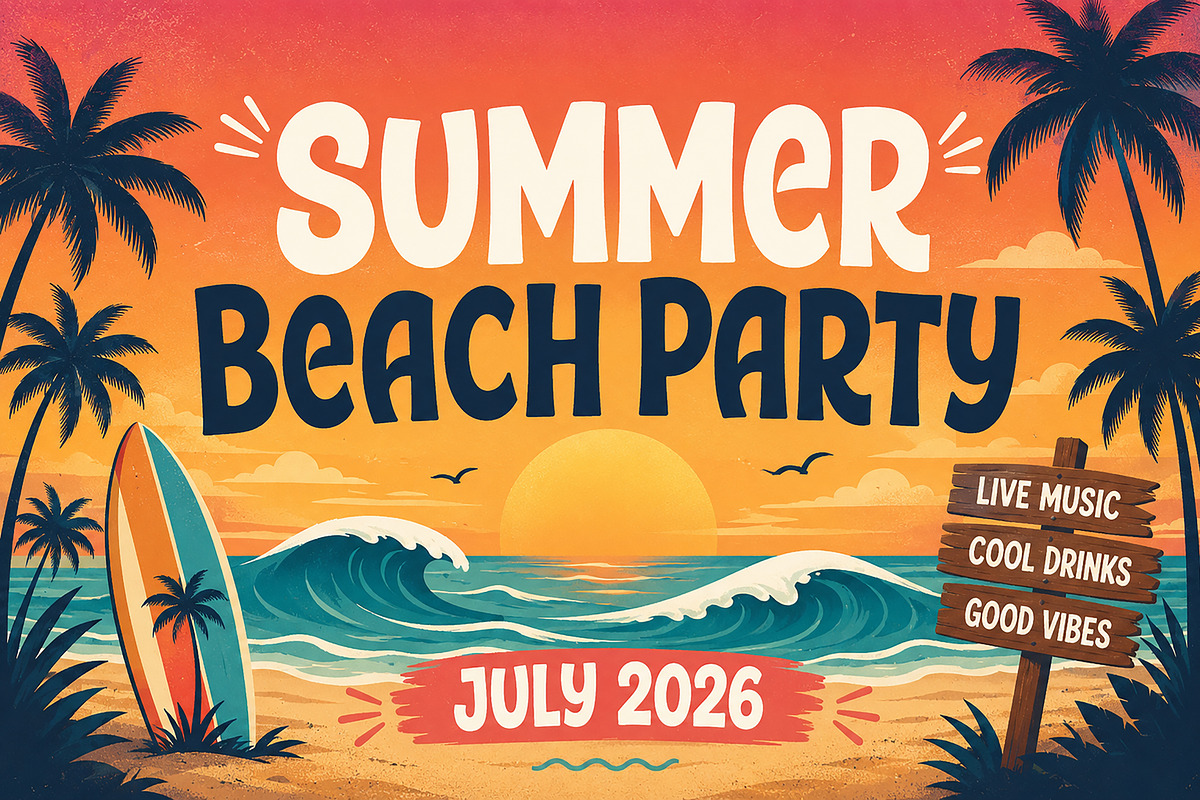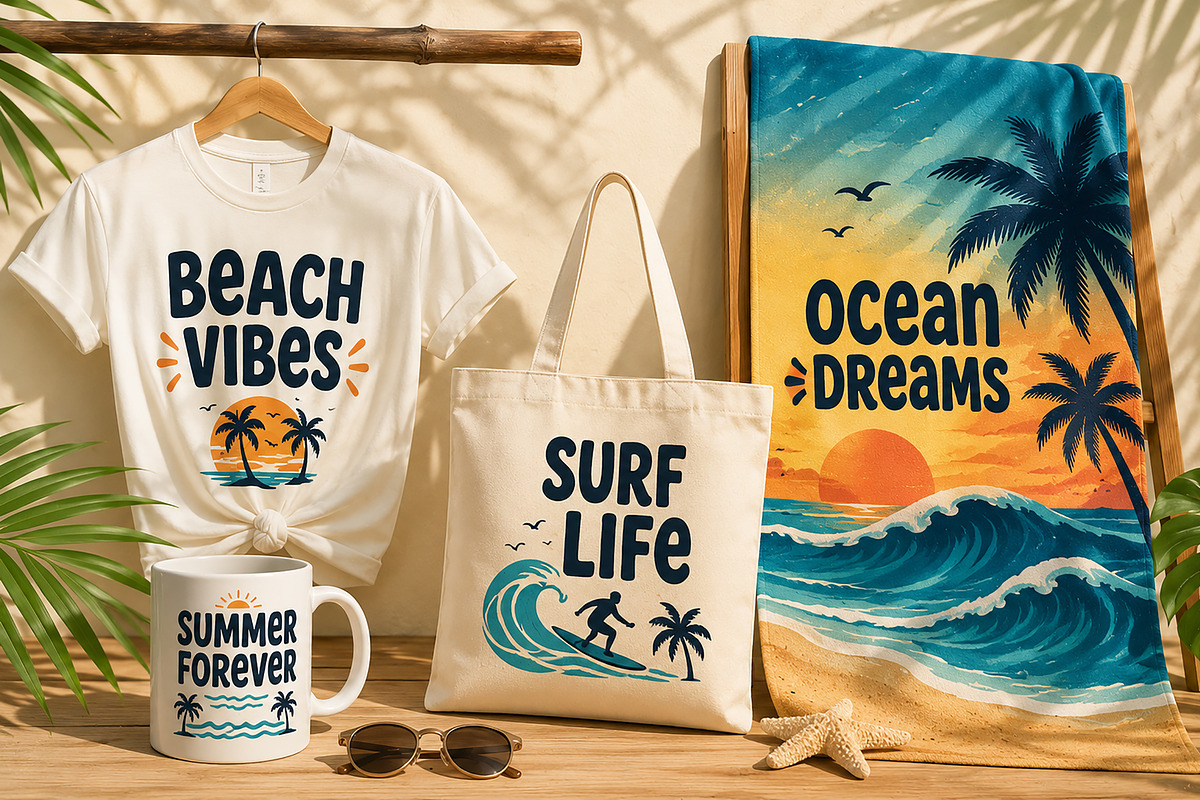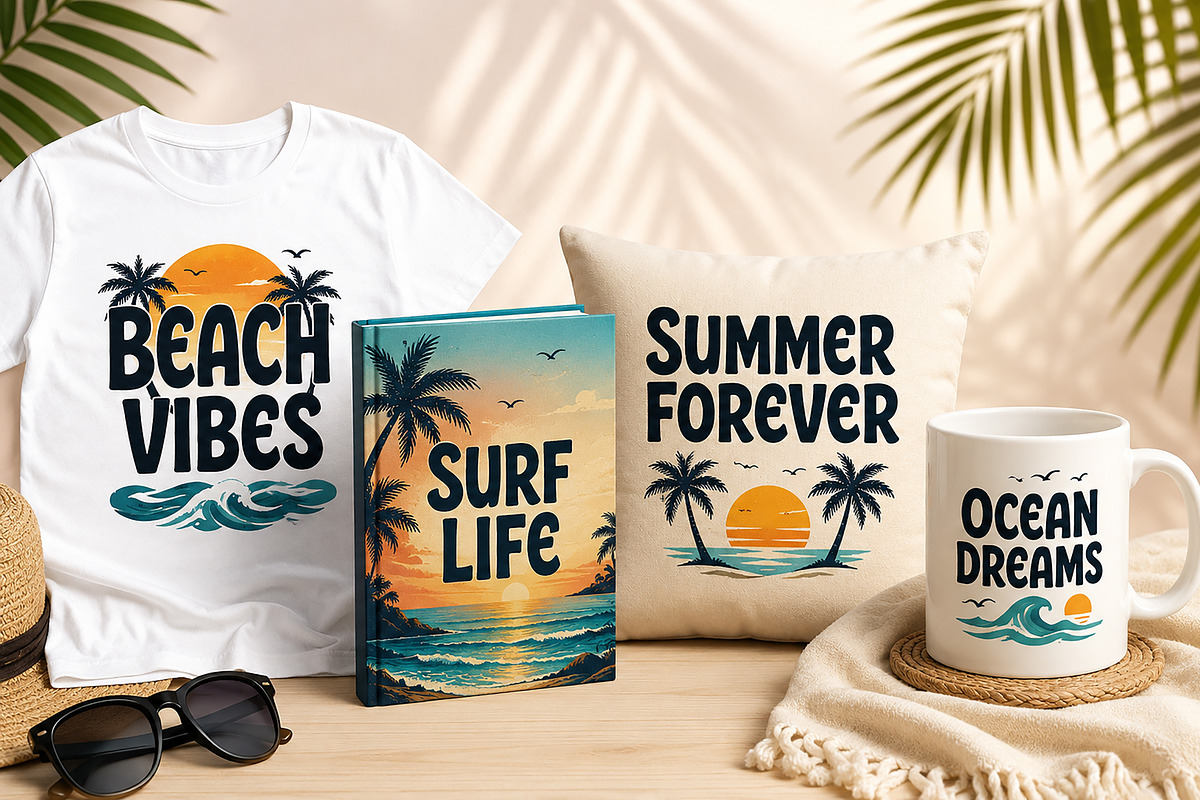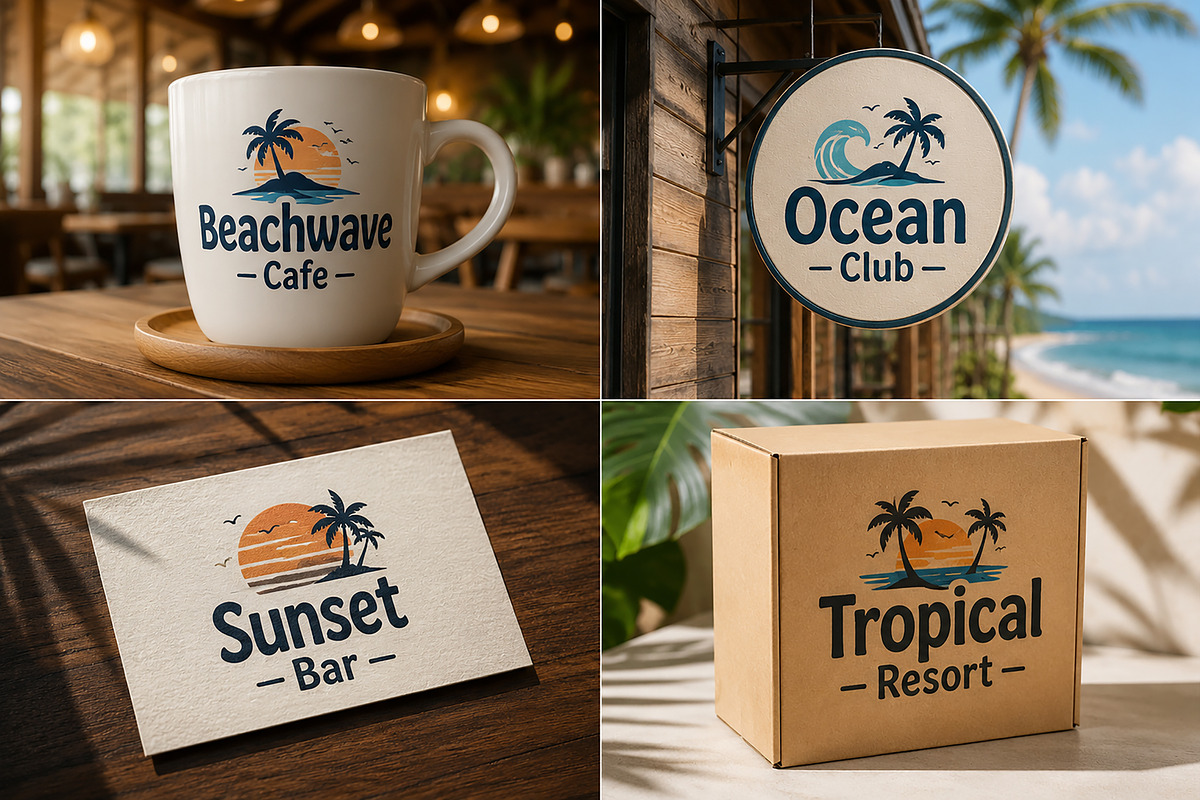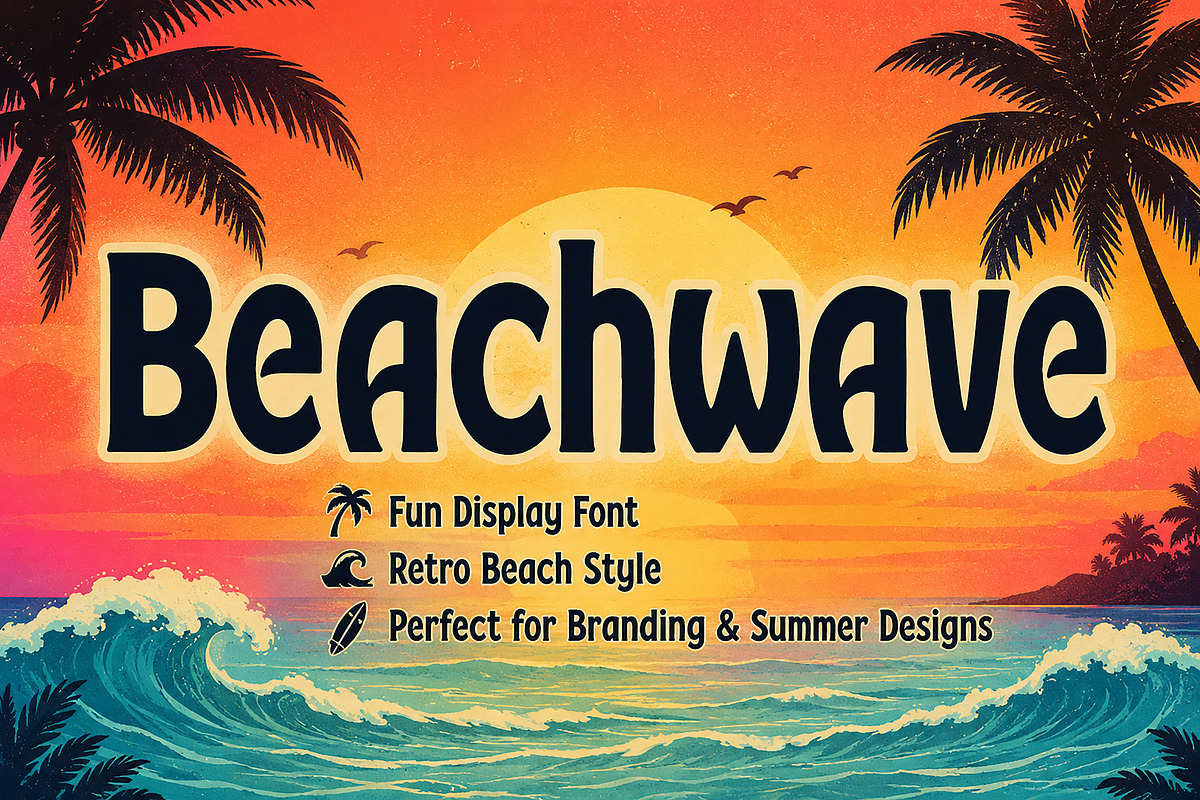
Beachwave
Beachwave – Fun Retro Display Font
Introducing Beachwave, a fun and eye-catching display font inspired by sunny beaches, ocean waves, tropical vacations, and retro summer vibes. With its bold curves, playful character shapes, and vintage-inspired style, Beachwave is designed to make your headlines stand out and bring a cheerful, relaxed feeling to any project.
Perfect for summer-themed designs, beach party posters, travel branding, product packaging, logos, social media graphics, merchandise, children's projects, and tropical-inspired artwork.
Whether you're creating a surf shop logo, a vacation poster, a beachwear brand, or a fun social media campaign, Beachwave delivers a unique and memorable look that captures the spirit of endless summer.
Logos & Branding
Summer Event Posters
Beach Party Flyers
Travel & Tourism Designs
T-Shirt Designs
Children's Products
Stickers & Crafts
Tropical & Retro Themes
Uppercase Letters
Lowercase Letters
Bring sunshine, waves, and tropical energy to your next creative project with Beachwave!